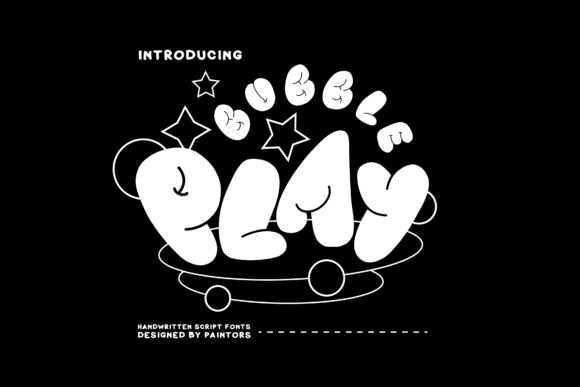
Introducing Bubble Play Font, the ultimate choice for those seeking the best fonts for handwriting! Created by PAINTORS, this whimsical and playful bold font is guaranteed to inject a dose of quirky charm into your designs.
With Bubble Play Font, you'll effortlessly infuse your projects with a delightful sense of fun and boundless energy. Its unique style sets it apart from the mundane, making it the perfect choice for headlines, posters, and children's materials.
Captivating and eye-catching, Bubble Play Font is sure to grab attention and put a smile on your audience's face. Its vibrant and lively appearance will instantly brighten up any creative endeavor, allowing your imagination to soar.
Whether you're designing invitations for a birthday party, creating captivating social media graphics, or crafting engaging educational materials, Bubble Play Font will be your secret weapon. Its versatility allows it to adapt effortlessly to any project, breathing life and personality into every word.
Embrace the endless possibilities that Bubble Play Font offers, and watch as your designs come alive with its playful and charismatic essence. The carefully crafted details of this font make it a joy to work with, ensuring that your creations always stand out from the crowd.
Say goodbye to plain and ordinary fonts, and say hello to Bubble Play Font. Let your creativity run wild and let this font be the catalyst for your design masterpieces. Download Bubble Play Font today and experience the magic it brings to your projects. Get ready to leave a lasting impression and make your audience fall in love with your creations.